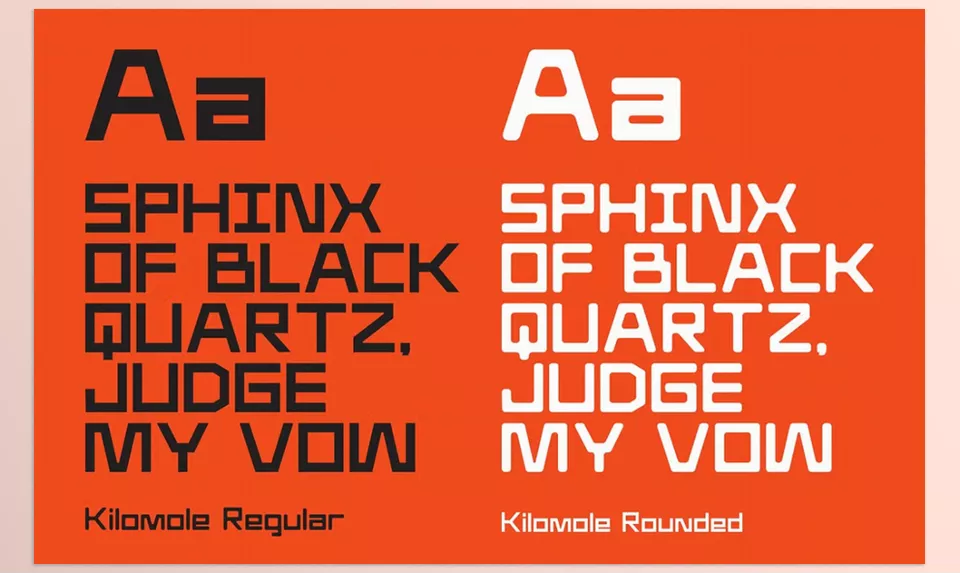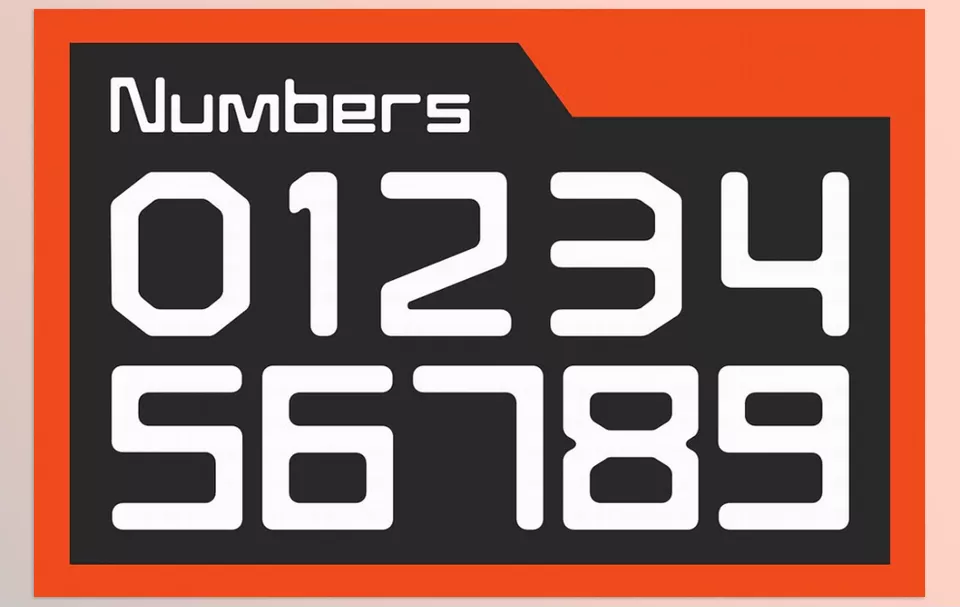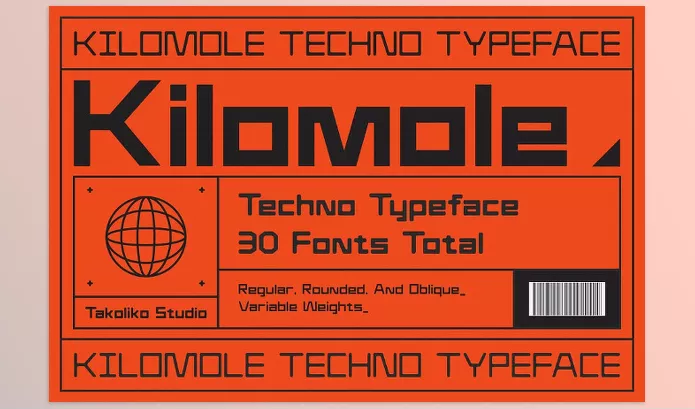
Kilomole Techno Typeface is the one designed with practicality for all your advanced font needs, and works best for all other creative projects. Comes in both a rounded and regular versions to suit all your designing requirements. The font’s cubic design makes it look strong and durable, which also creates a modern aesthetic.
takoliko – Kilomole Techno Typeface Features
• Two Styles: Easy to suit any design requirements as two styles, rounded and regular, are offered.
• Cubic Design: Perfect for powerful designs, embodying strength and concentration.
• Futuristic Vibe: Sharp modern look to enhance advanced designing projects.
• Urban Sophistication: Blend of sophisticated, smooth, and gritty turns of the urban world.
• Innovative Appeal: A cutting-edge typeface to spice your creative toolbox.
Preview Kilomole Techno Typeface
Image 1: Classic charm, modern finesse—crafted for statements that last.
Kilomole Techno Typeface - Classic charm, modern finesse—crafted for statements that last.
Image 2: Refined typography that speaks with grace and authority.
Kilomole Techno Typeface - Refined typography that speaks with grace and authority.